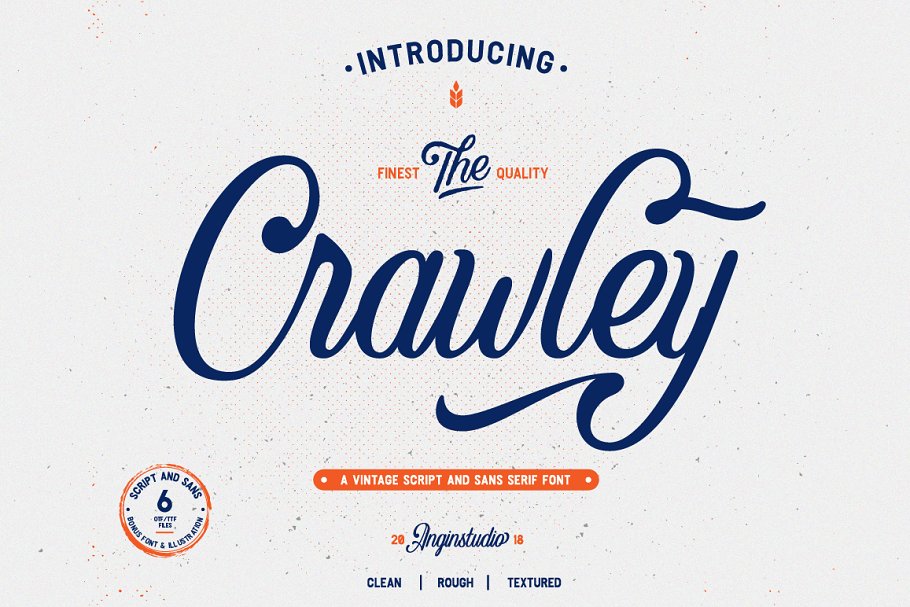
Introducing The Crawley, a vintage script font that will make you feel something! Created by Ahmad Aswin, this font is perfect for those looking for a font to represent their expression and make a statement.
The Crawley comes in three styles: Clean, Rough, and Textured, allowing you to choose the perfect style for your project. Additionally, it includes opentype features such as ligature, stylistic alternates, and directional alternates, giving you endless design possibilities. The font also supports multiple languages, making it perfect for a global audience.
But that's not all. The Crawley font collection includes not only the three styles of the Crawley font, but also the Heller sans clean, rounded, and rough fonts, as well as an illustration font. You can mix and match these fonts to create unique and captivating designs.
Whether you're designing a bar sign, packaging, or labels, The Crawley font collection has got you covered. With its vintage feel inspired by old American signage, this font will add a touch of nostalgia to your projects.